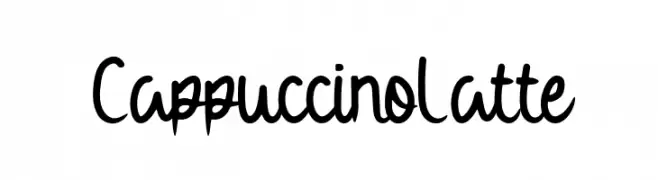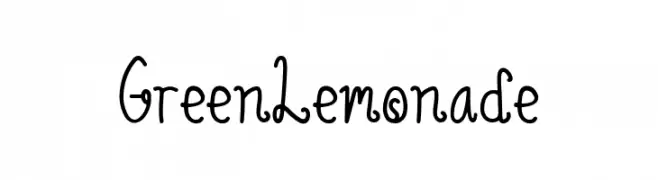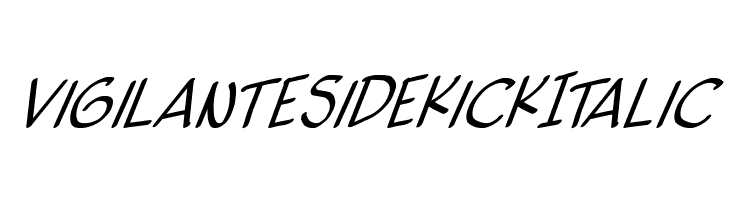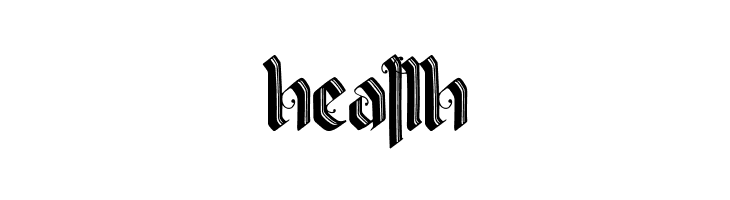
A playful, handwritten font with smooth, flowing curves and a casual style.
A bold, energetic handwritten font with playful, uneven strokes.
A bold, handwritten font with a playful and friendly style.
A playful, hand-drawn font with dynamic, irregular strokes.
A cursive, handwritten-style font with elegant loops and swashes.
A playful and whimsical font with curly, flowing strokes and decorative loops.
A playful, bold font with rounded edges and a whimsical style.
A playful, hand-drawn font with tall, narrow letters and a whimsical style.
A bold, cursive-style font with dynamic, sweeping strokes and a sense of movement.
A playful, hand-drawn font with elongated, quirky letterforms.